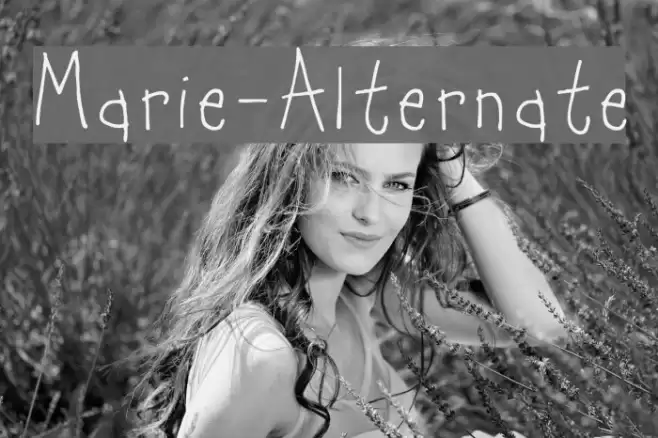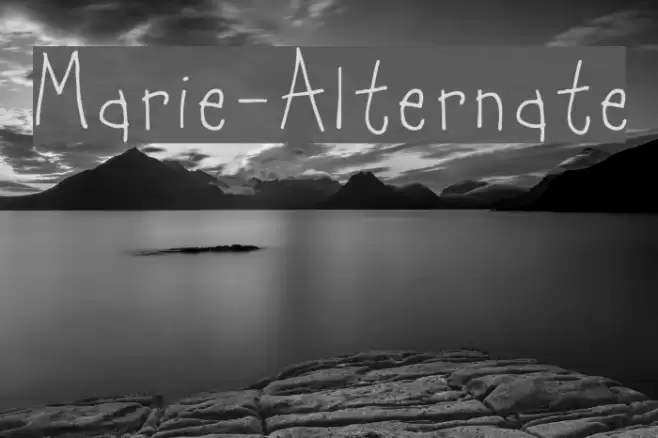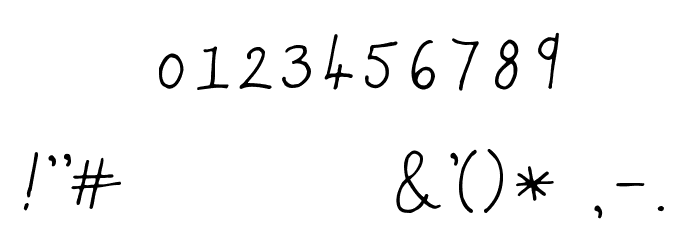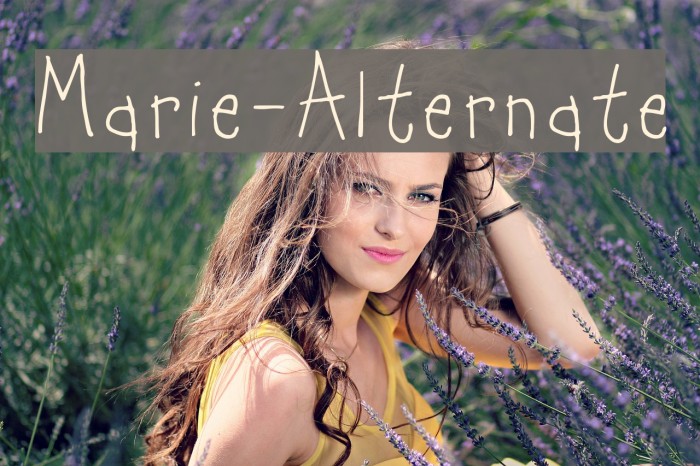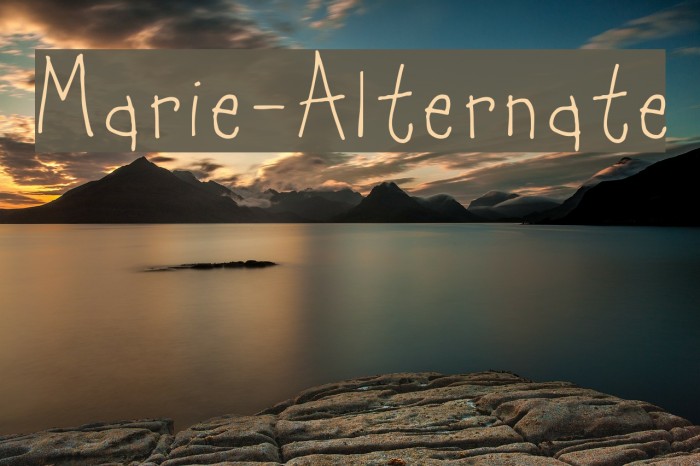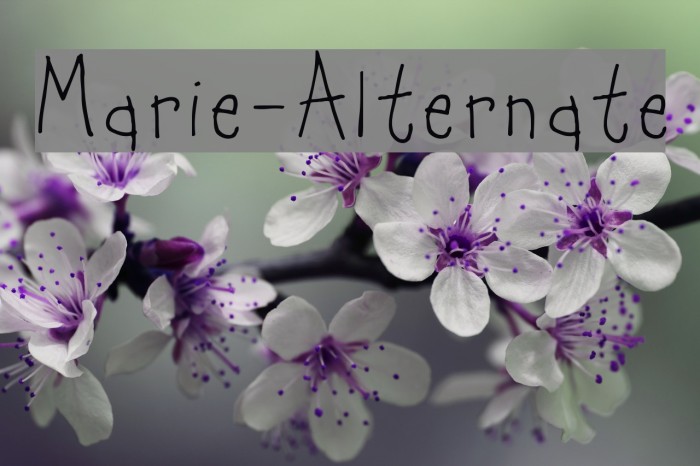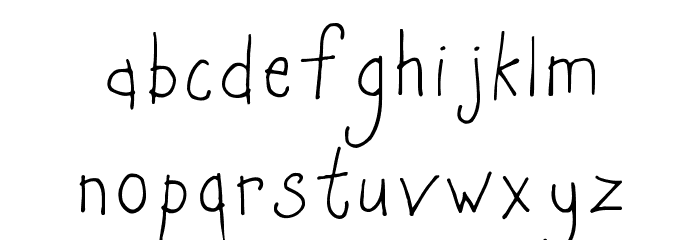
Marie-Alternate Font
Marie-Alternate Description
This font features a playful and whimsical handwritten style, characterized by its irregular and slightly quirky letterforms. The uppercase letters are tall and narrow, with a slight tilt that adds to the casual feel. The lowercase letters maintain this playful aesthetic, with some letters like 'e' and 'g' having unique, charming loops. The numbers are consistent with the overall style, offering a cohesive look. Special characters are included, maintaining the same hand-drawn quality. This font exudes a sense of fun and creativity, making it ideal for projects that require a personal touch.
A playful, handwritten font with quirky, irregular letterforms from Uncategorized fonts.
- Proposed Projects: Ideal for greeting cards, children's books, playful branding, and creative invitations.
- Overall Style: Casual, Playful
- Use Case: Headlines, Informal text, Creative projects